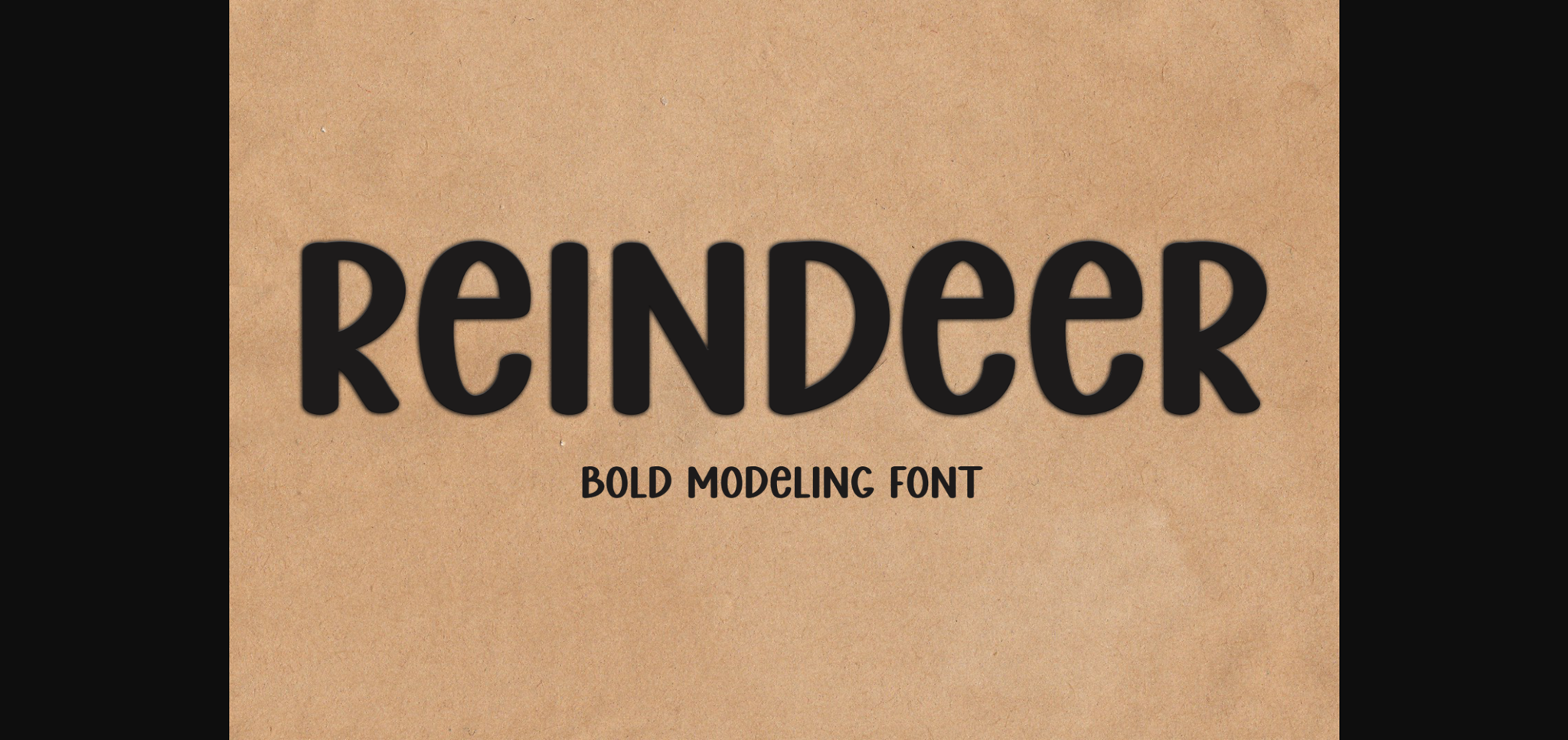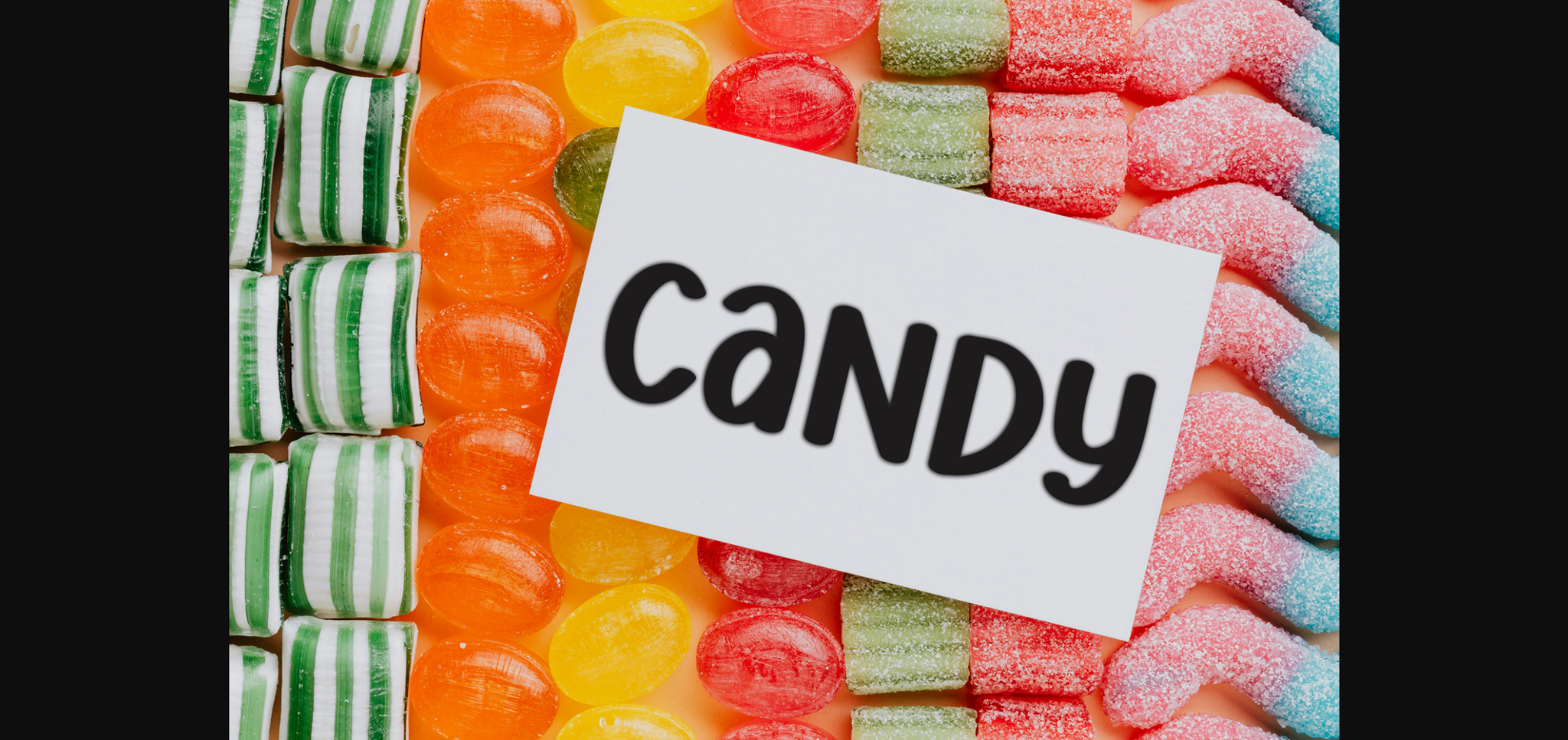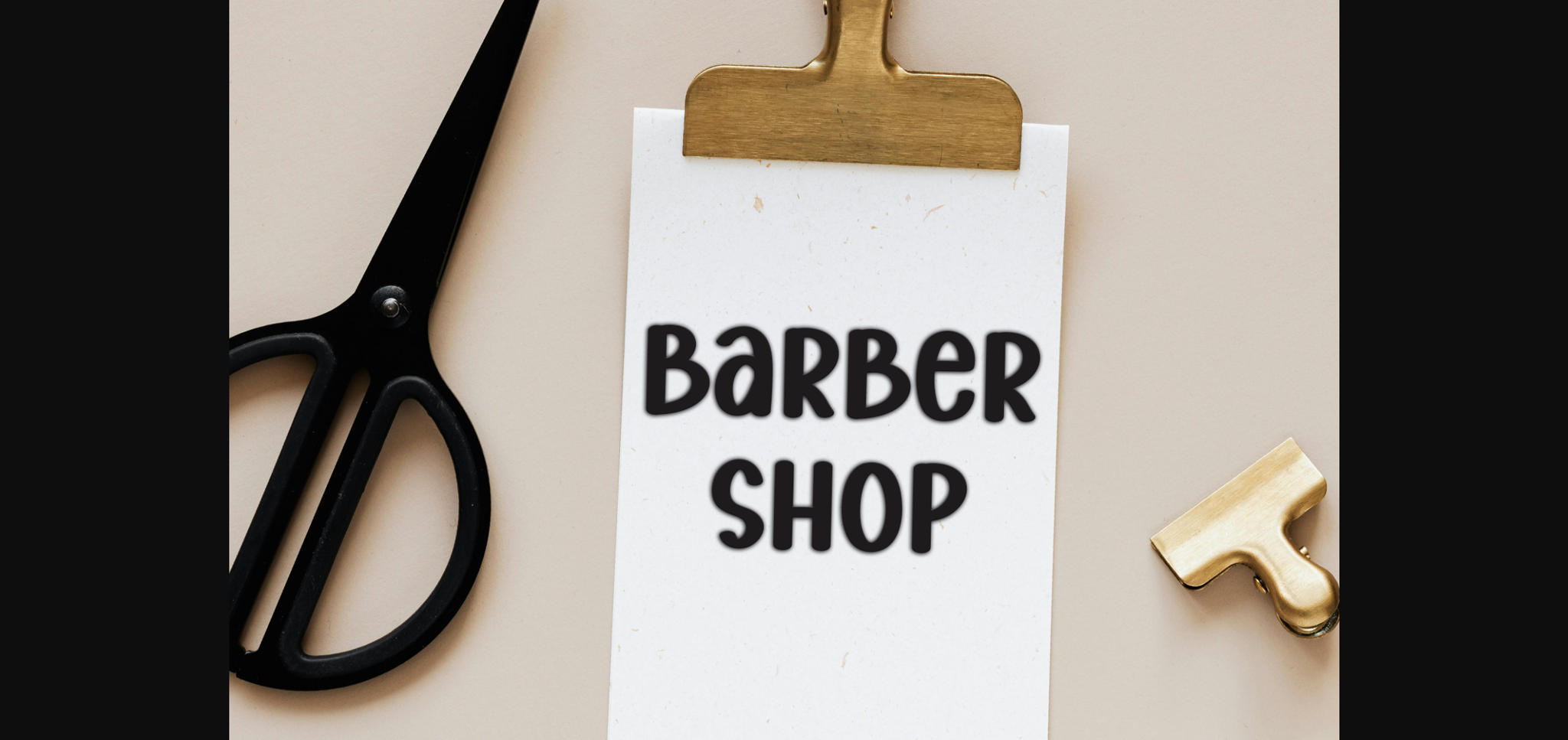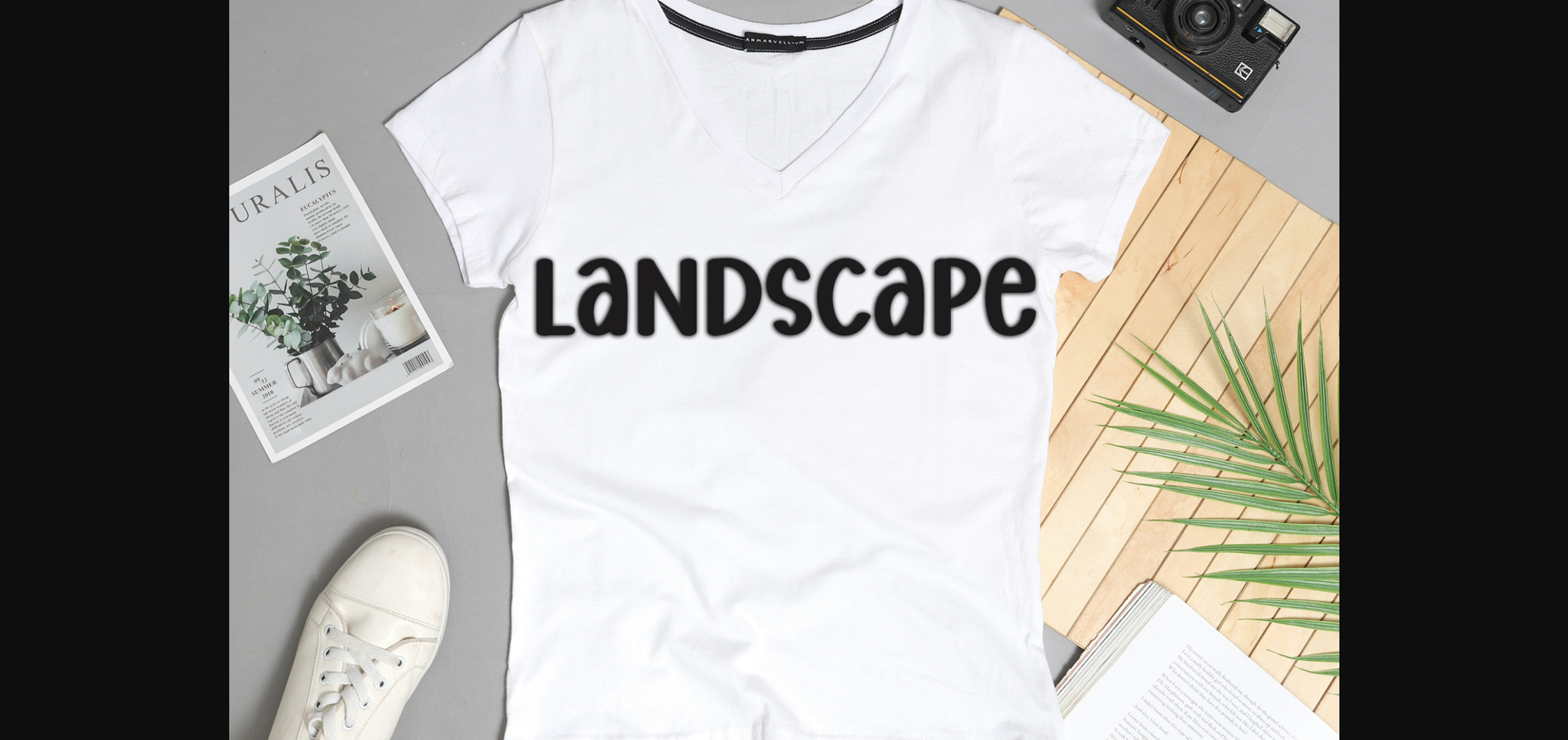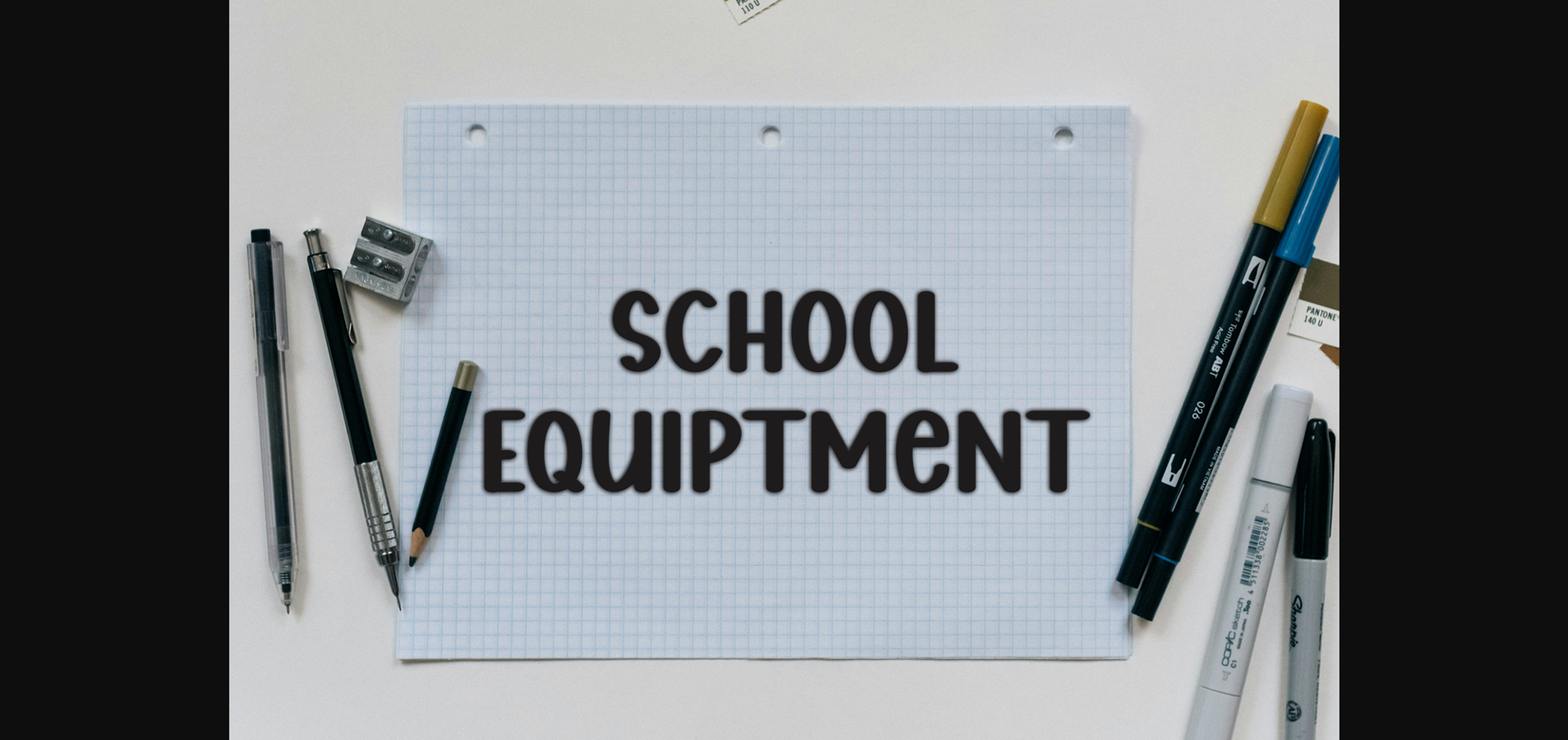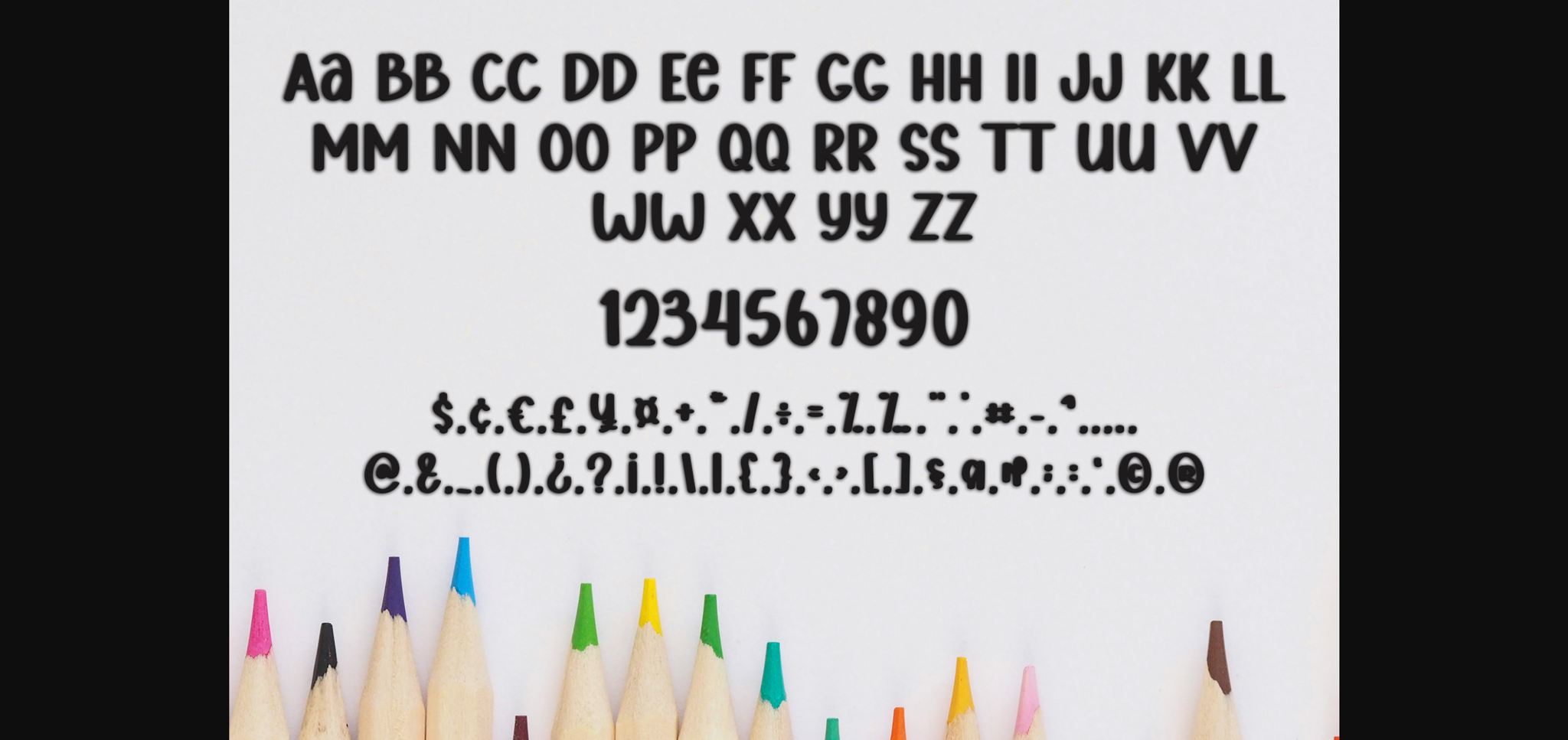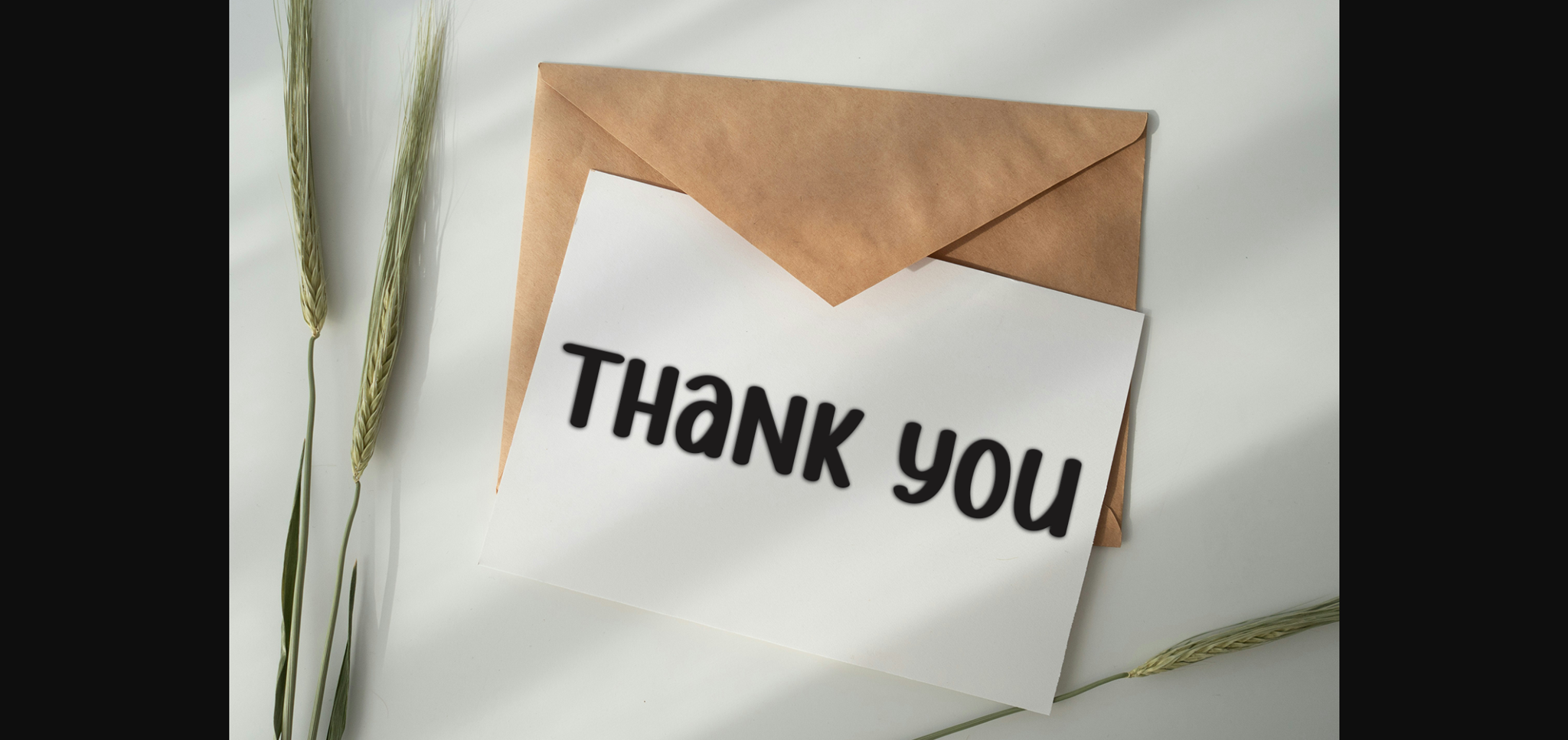
Reindeer Font
About Reindeer Font
Reindeer is a beautiful and refined sans-serif font. It has a classy, elegant, and modern look that can be used for logos, branding, invitations, stationery, wedding designs, social media posts, and much more!